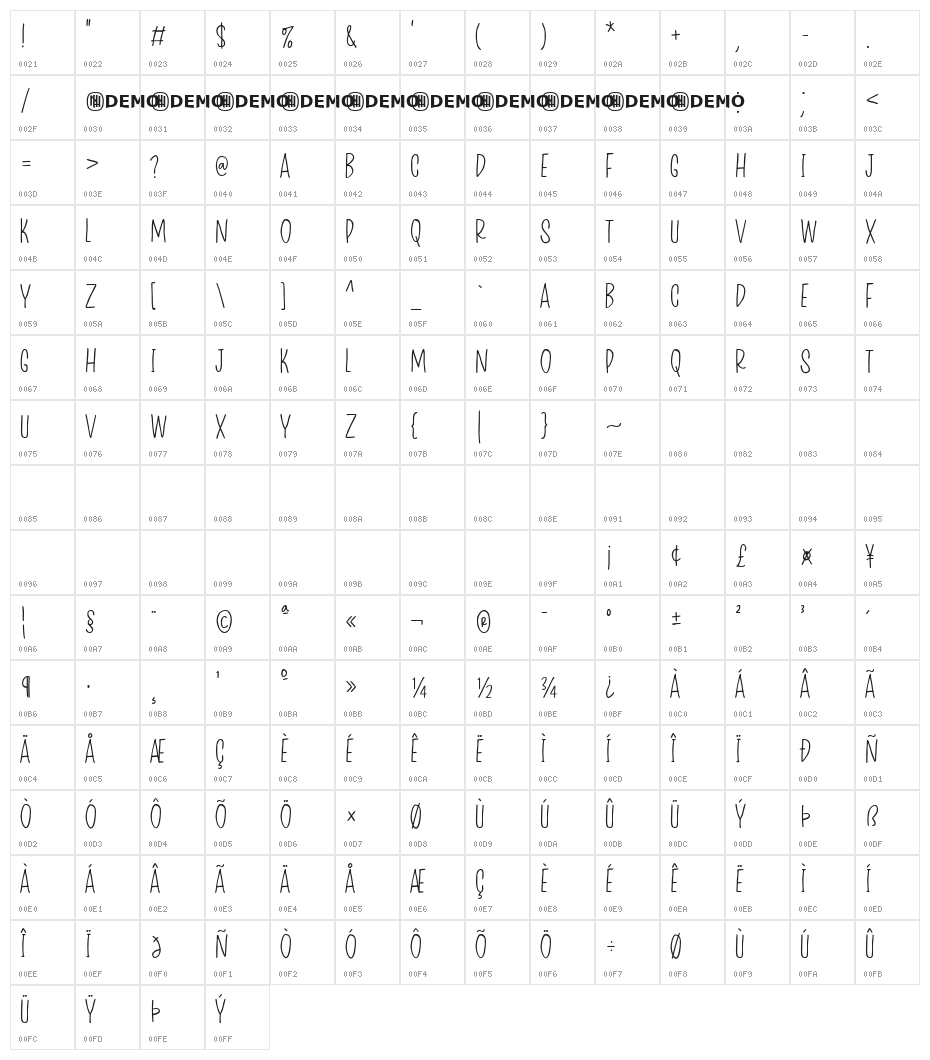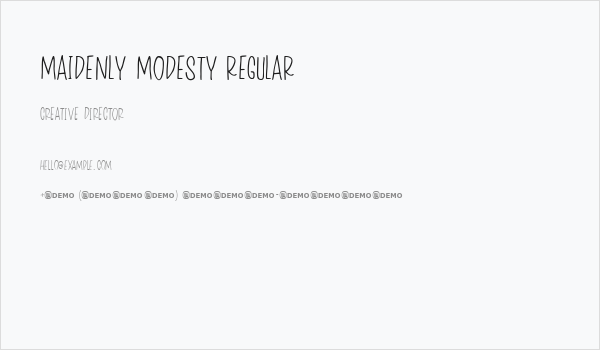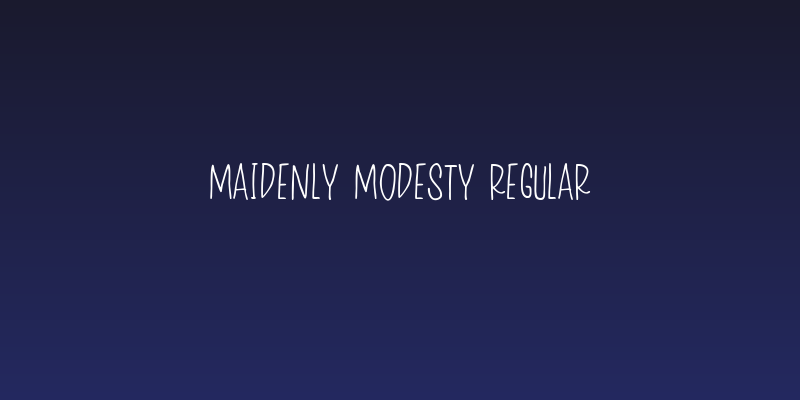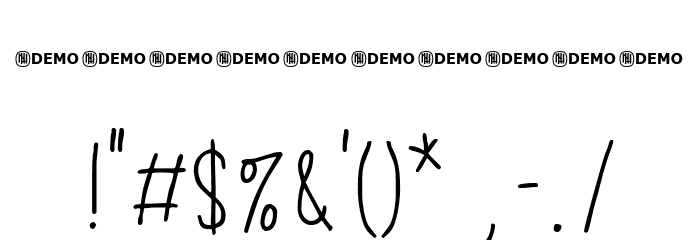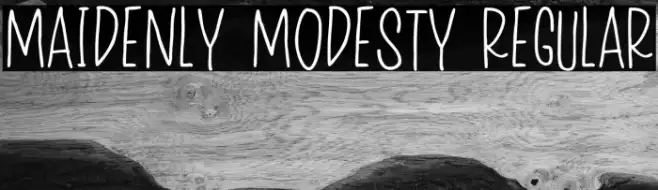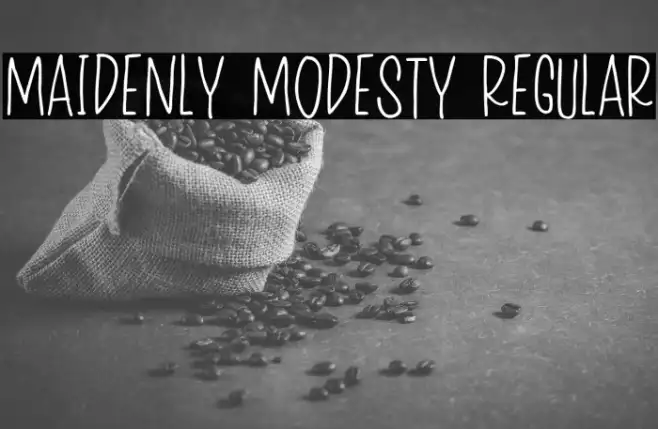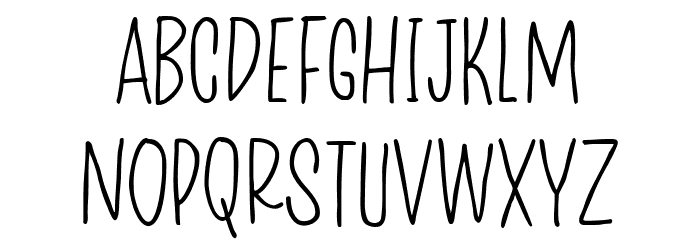
Maidenly Modesty Regular Font
Maidenly Modesty Regular Description
This font features a playful and whimsical handwritten style, characterized by its tall, narrow letters with a slight slant. The strokes are smooth and consistent, giving it a casual yet refined appearance. The uppercase and lowercase letters maintain a uniform height, contributing to a cohesive look. The numerals and special characters are designed to match the overall aesthetic, with a touch of creativity in their forms. This font is versatile, suitable for projects that require a personal and approachable feel.
| Proposed Projects | Ideal for greeting cards, invitations, personal branding, and creative projects that benefit from a friendly and informal touch. |